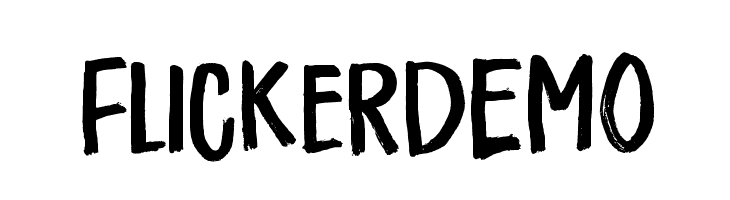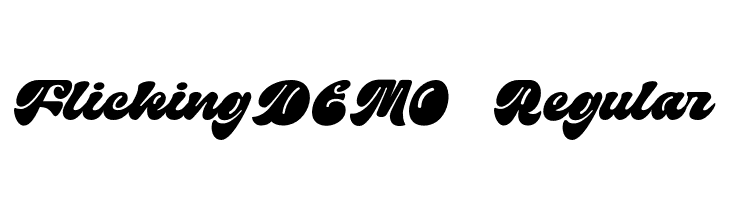
A bold, hand-painted font with a textured, artistic style.
A decorative font with geometric, mosaic-like characters.
A bold, flowing script font with smooth, connected letters and a modern calligraphic style.
A bold, geometric font with a futuristic and mechanical style.
A bold, geometric font with a futuristic and angular design.
A bold, geometric 3D font with a futuristic and industrial style.
A bold, geometric font with a 3D effect, perfect for modern designs.
A bold, 3D italic font with a futuristic and tech-inspired design.
A bold, italicized 3D font with a futuristic and angular design.
A bold, geometric, and condensed font with a futuristic industrial style.